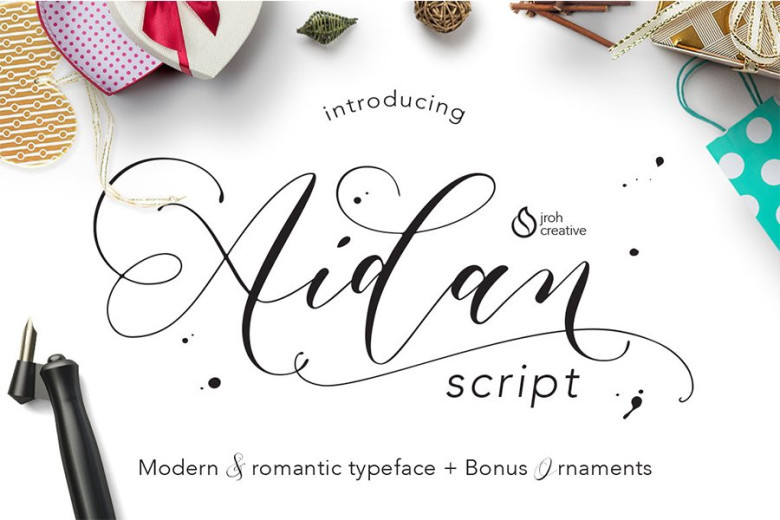
Aidan Romantic Script
Aidan is a modern copperplate calligraphy with a romantic and dramatic movement. It suitable for wedding invitation, greeting cards, watercolor based design, or anything that need natural feeling to put on to.